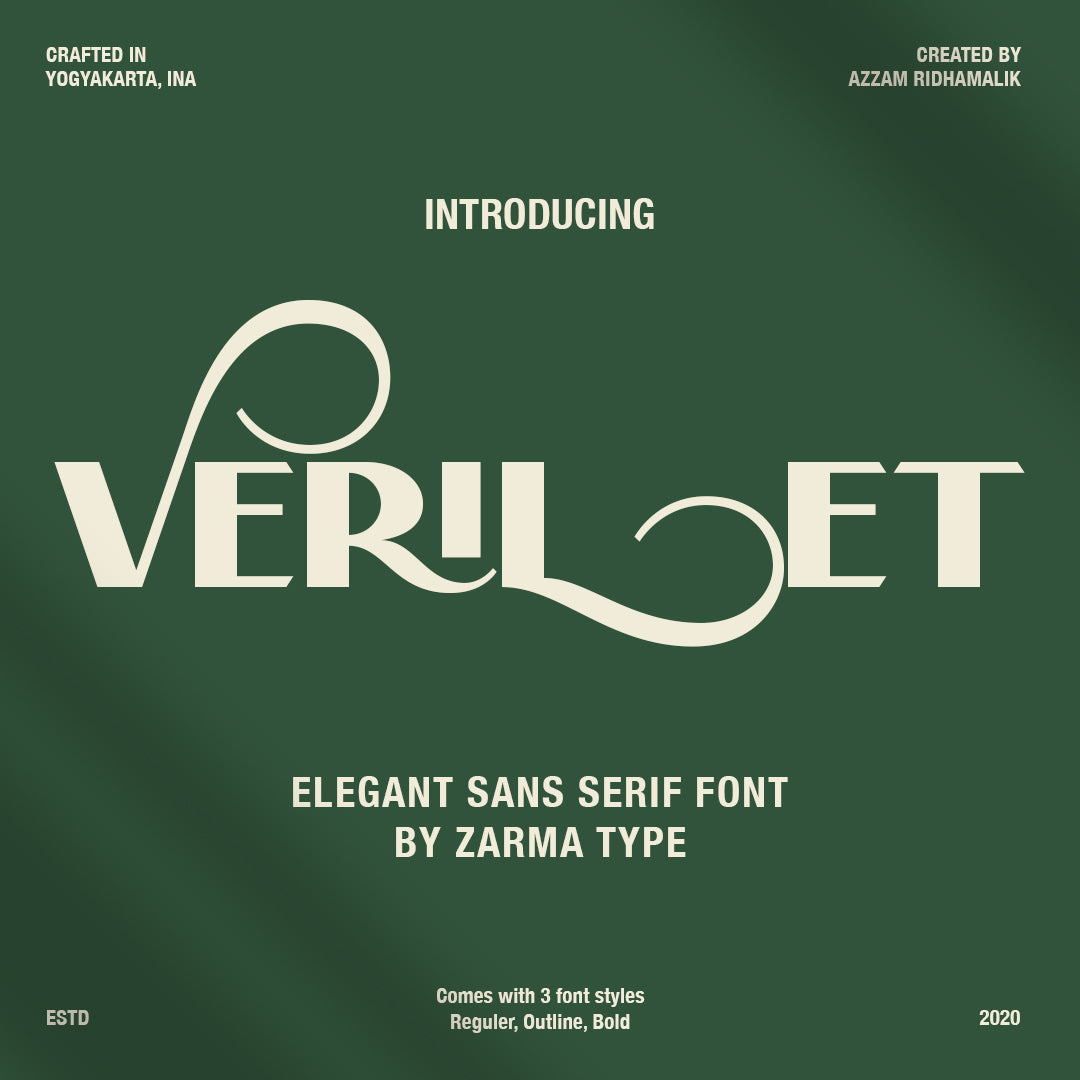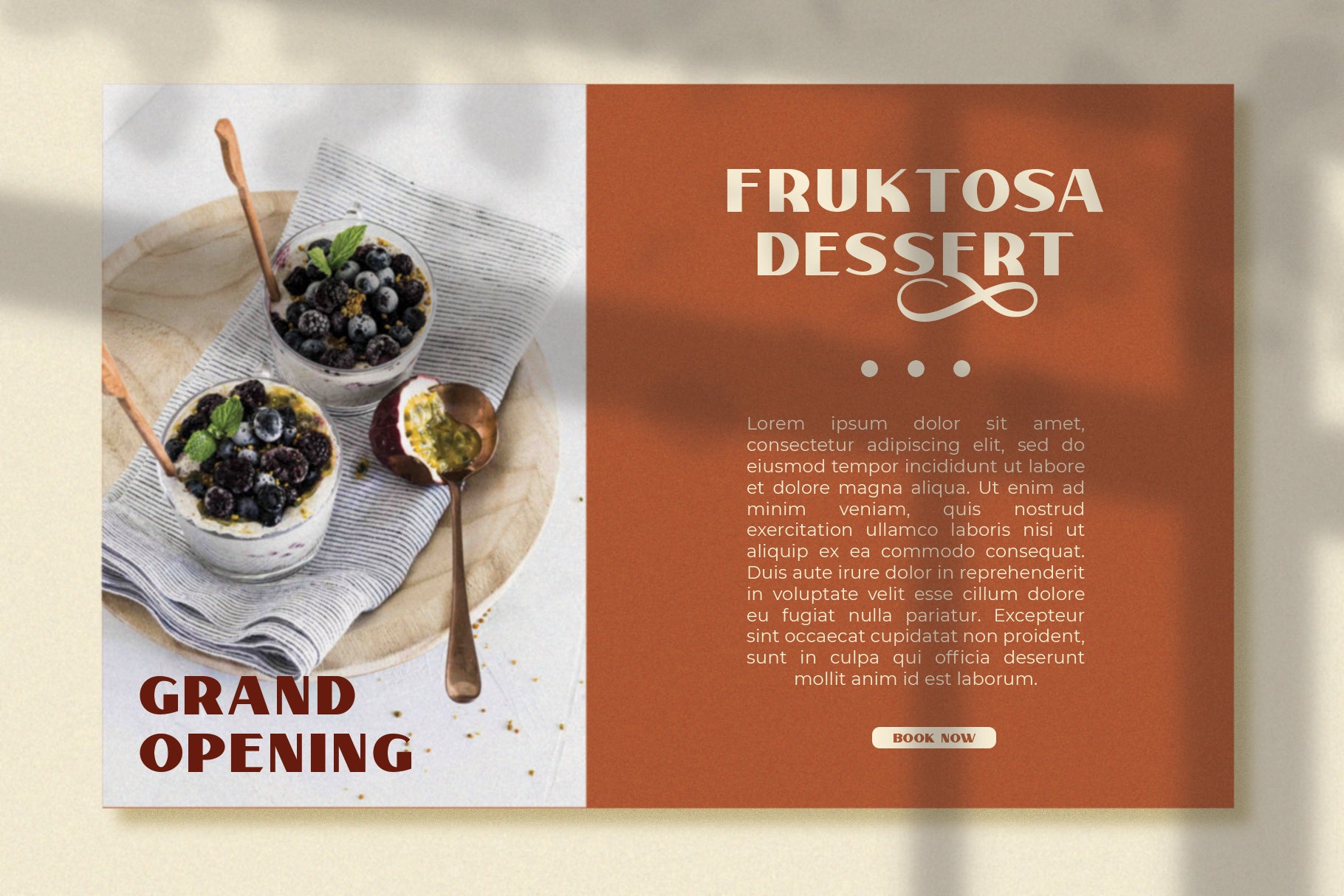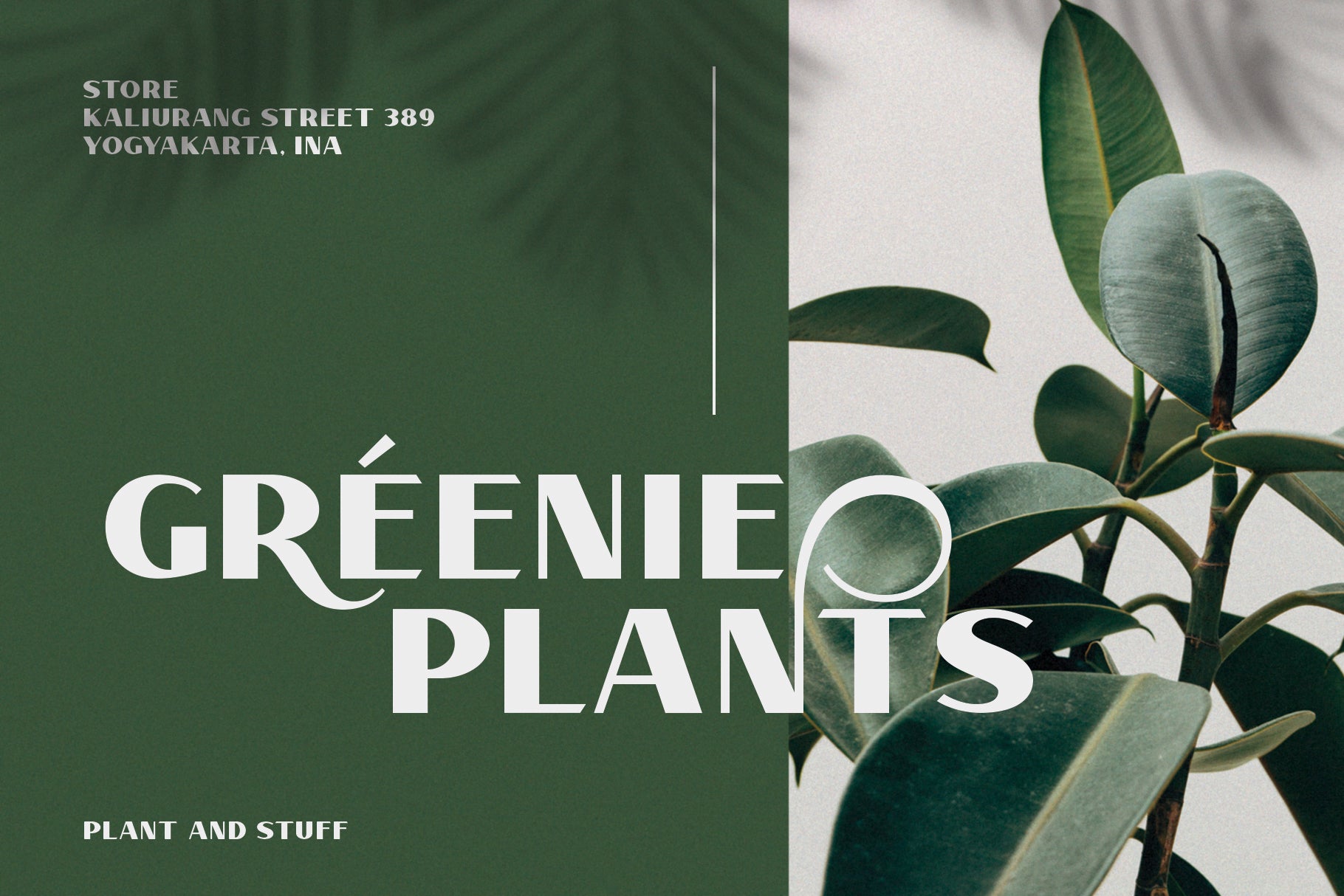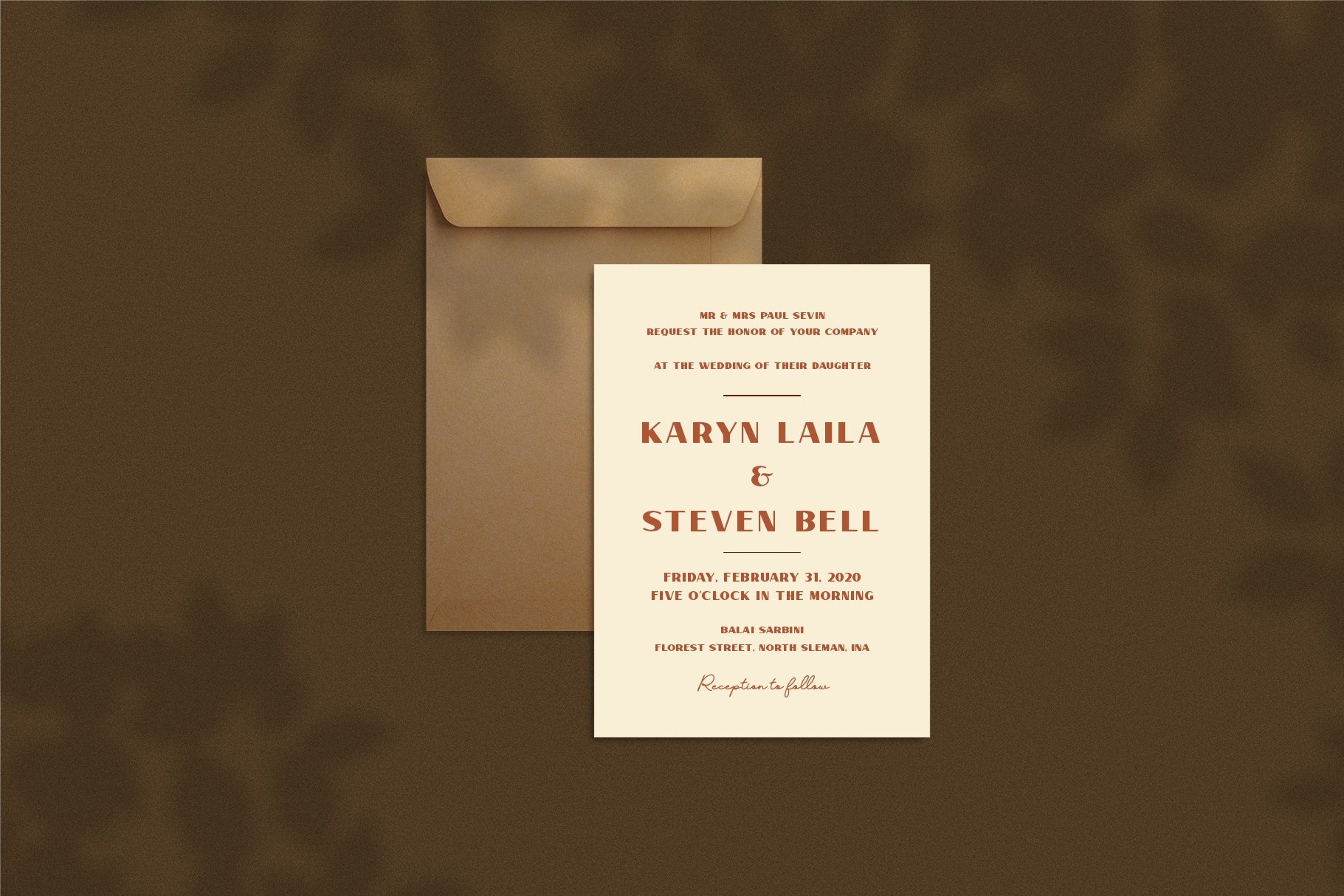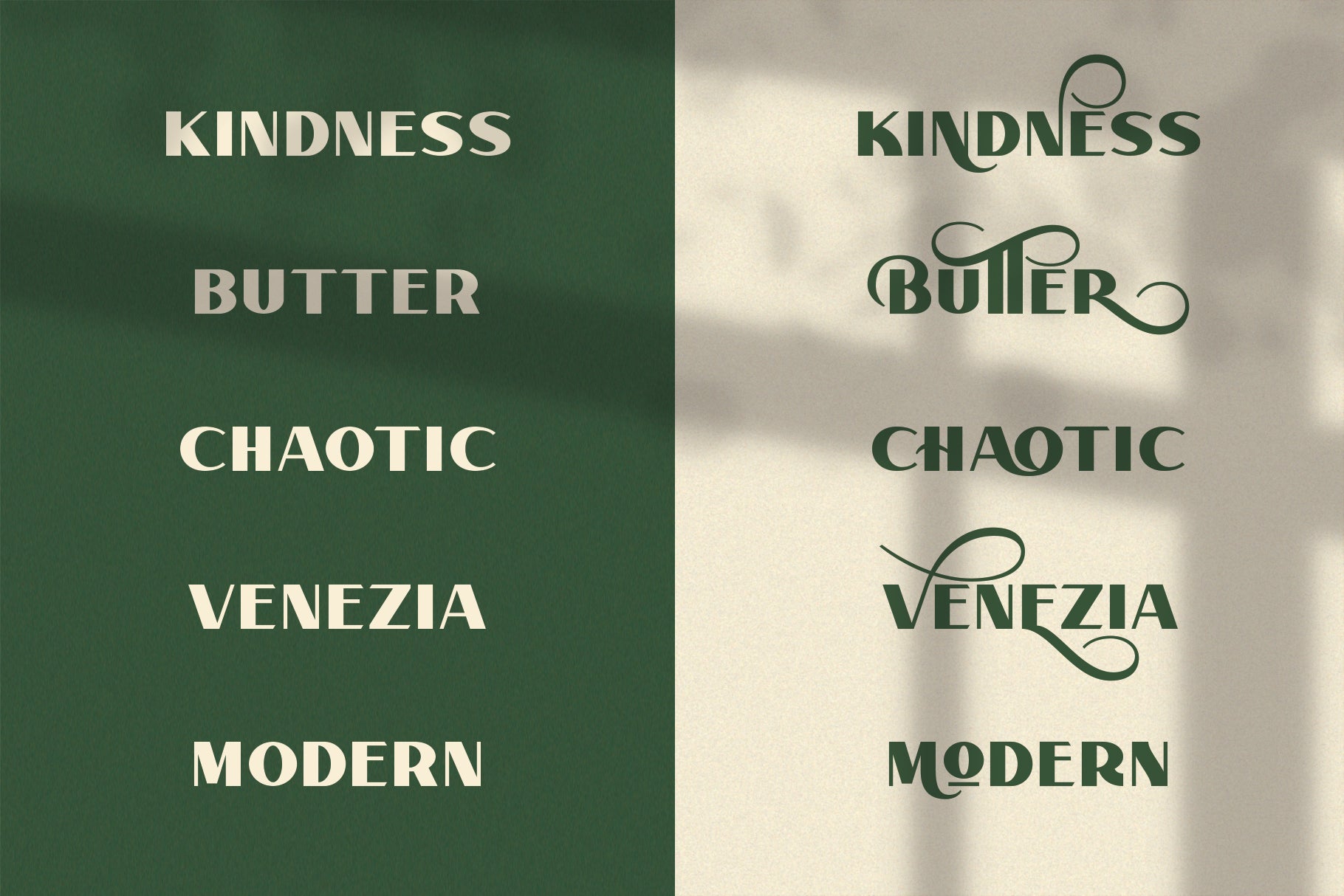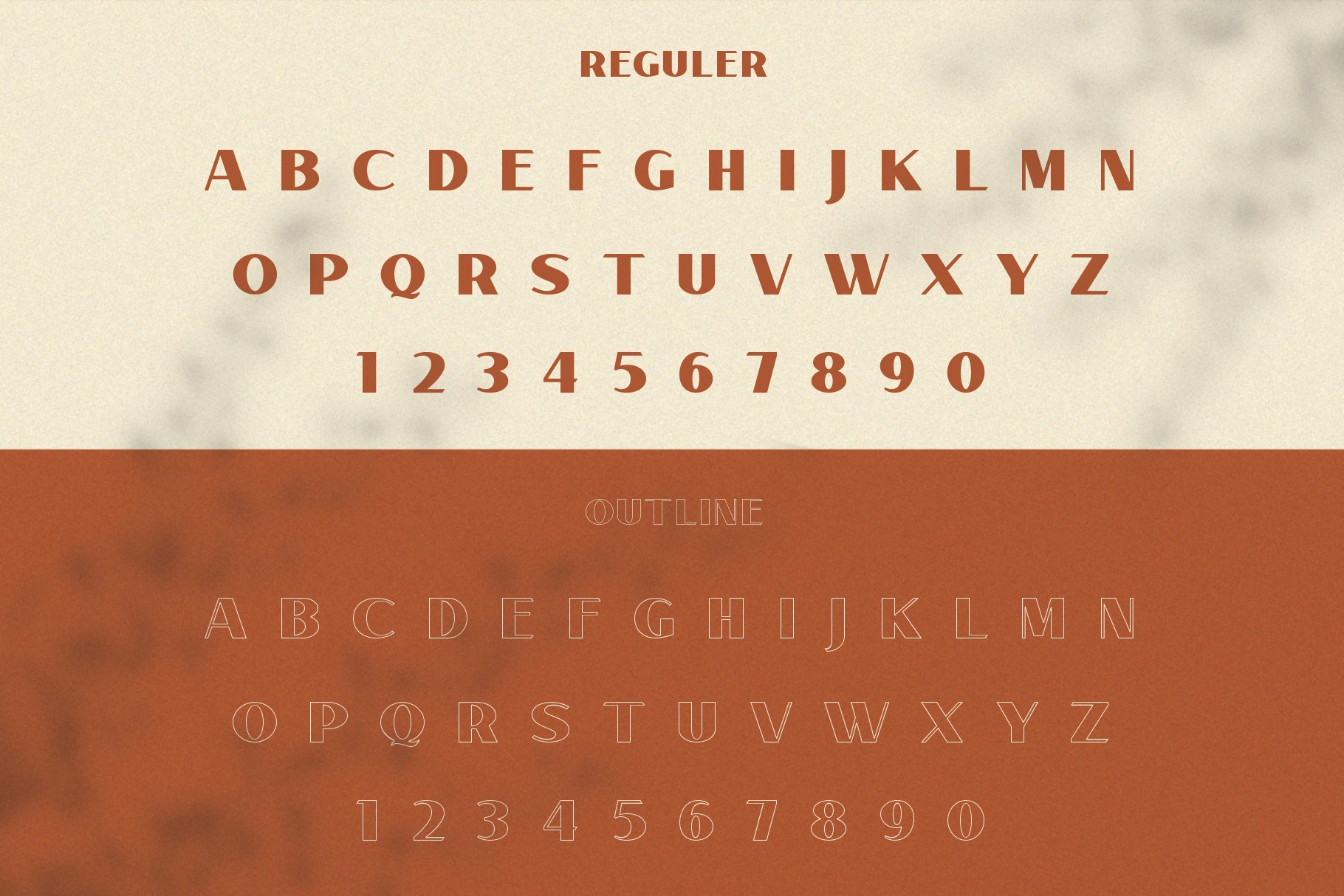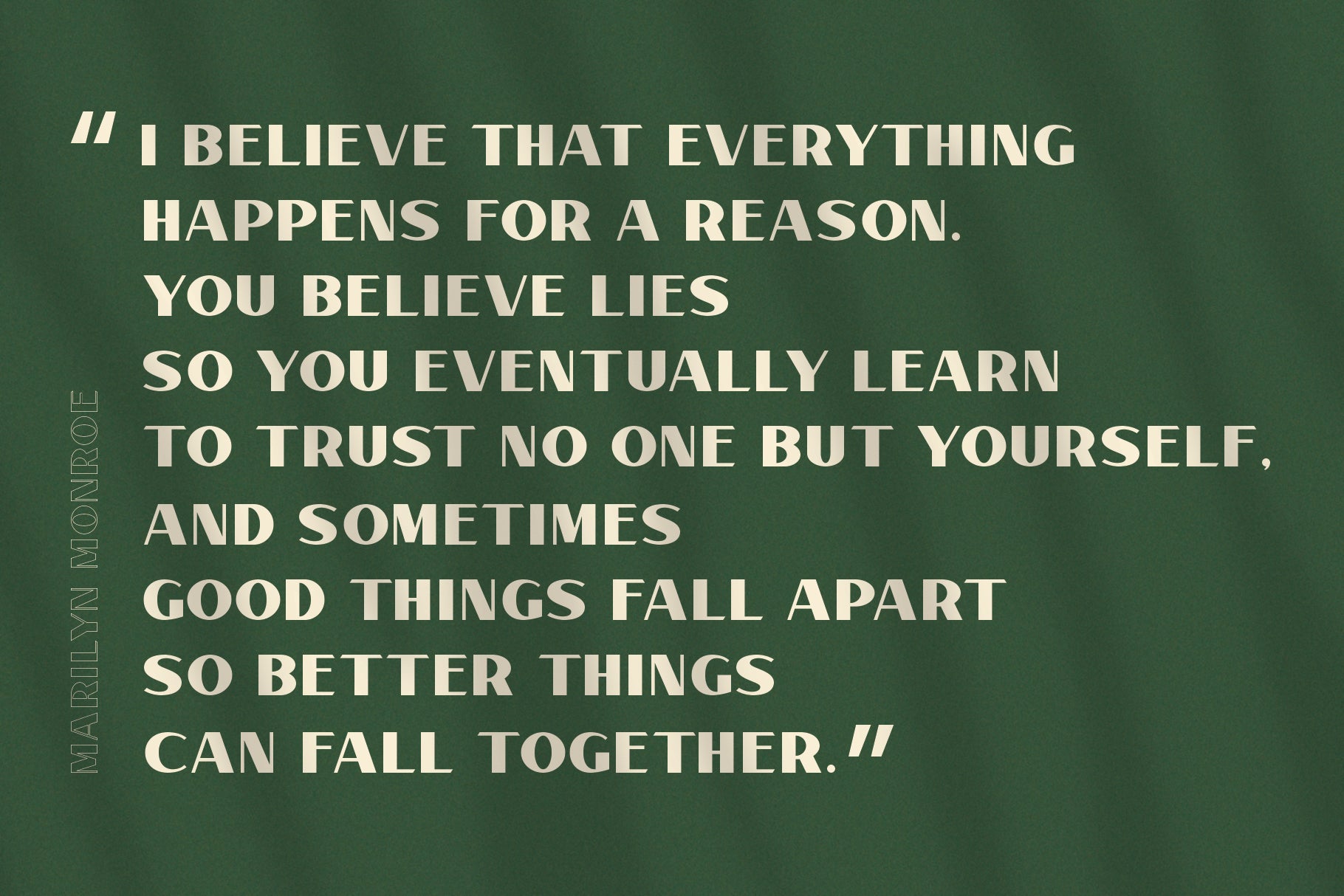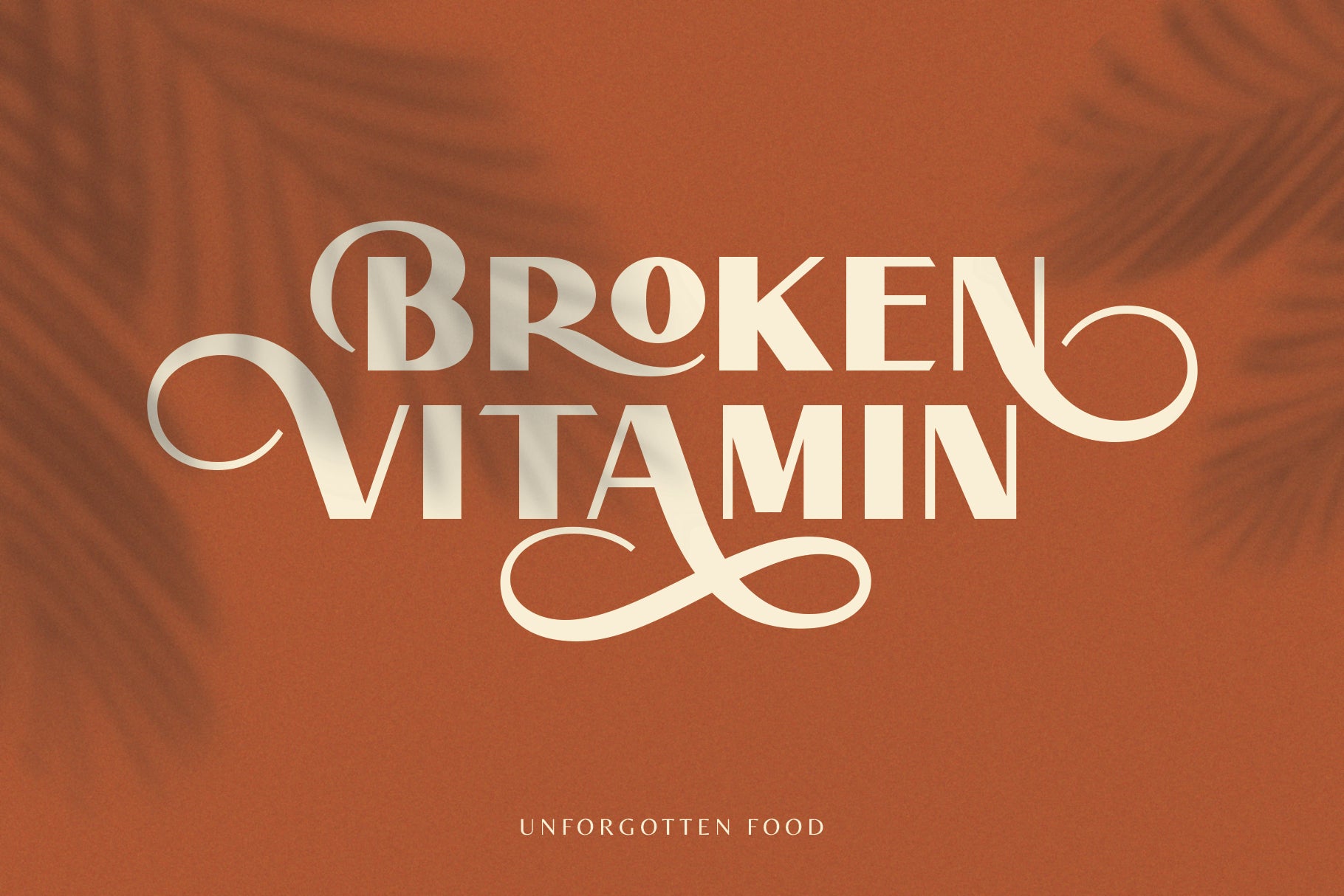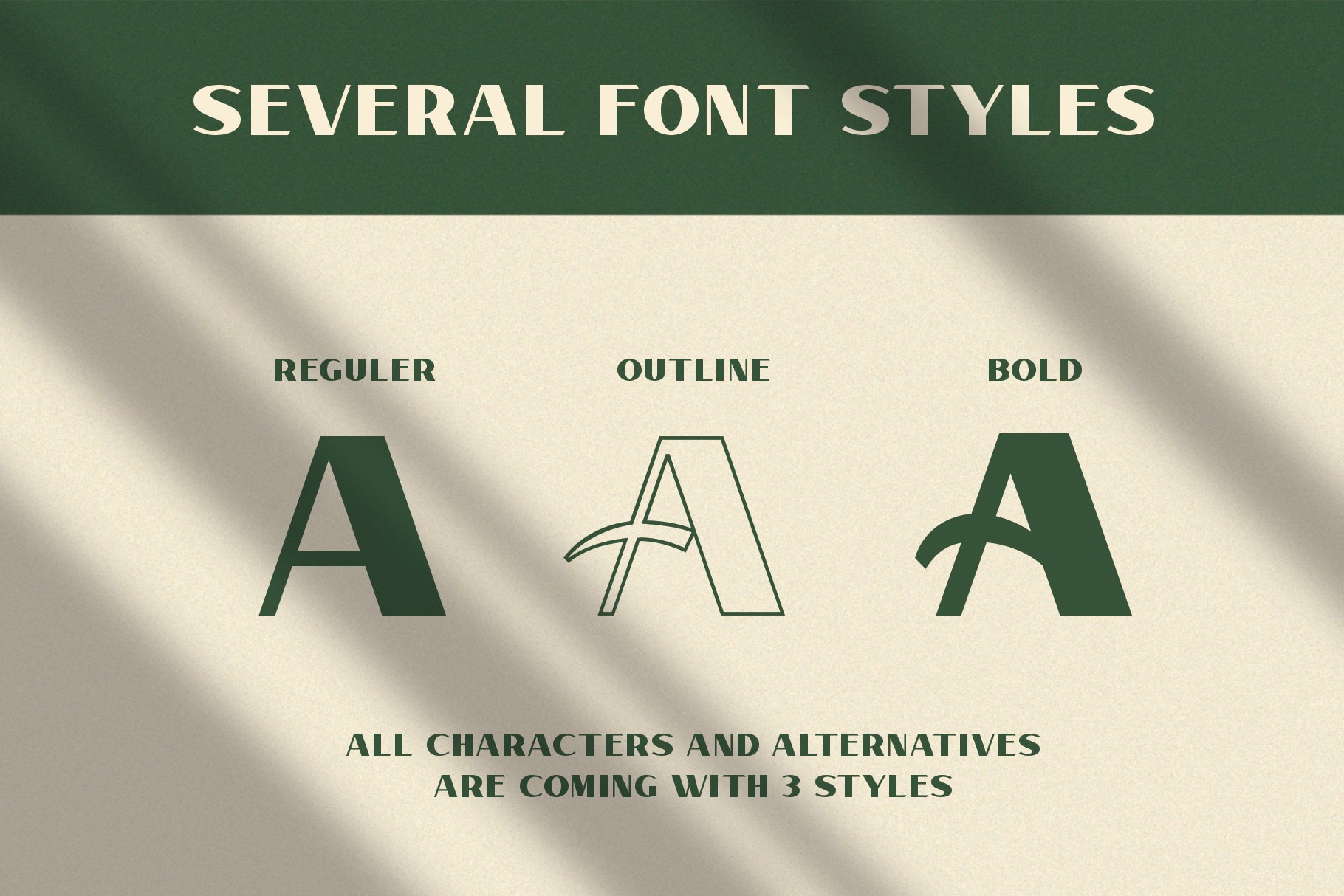
Verilet - Elegant Sans Serif Font
Meet Verilet — the all-caps display typeface for designers who want elegance with an edge.
Verilet is a bold, refined all-caps display font that blends modern sophistication with a subtle vintage character. Designed to make an impression at large sizes, it's the kind of typeface that turns a headline into a statement — on logos, packaging, editorial spreads, wedding stationery, and beyond.
What makes Verilet work so well?
Whether you're crafting a luxury brand identity or designing an eye-catching poster, Verilet gives you the visual presence and typographic flexibility to pull it off. Three distinct weights — Regular, Outline, and Bold — let you build contrast and hierarchy within a single typeface family. And because web formats are included in every weight, Verilet moves seamlessly from print to screen without extra setup.
Packed with thoughtful details:
With over 400 glyphs, Verilet goes well beyond a basic character set. Ligatures and stylistic alternates give you fine control over how letters interact, so every composition feels intentional rather than default. Multilingual support means your designs aren't limited by language — Verilet is built to travel.
Suitable for: Logos, Branding, Packaging, Editorial, Wedding Stationery, Signage, Web
- 3 Weights: Regular, Outline, Bold
- Ligatures & Stylistic Alternates
- 400+ Glyphs
- Multilingual Support
Verilet is an elegant all-caps display sans serif font that features three distinct weights—Regular, Outline, and Bold—along with over 400 glyphs, ligatures, and stylistic alternates. It includes static font formats (OTF, TTF, WOFF, WOFF2) and offers multilingual support, making it versatile for various design applications.